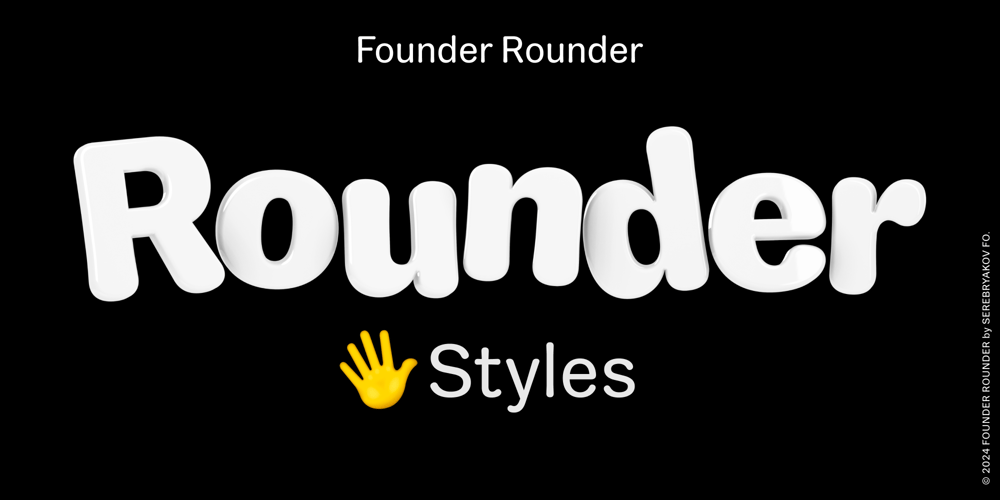
Founder Rounder Font Family was designed by Denis Serebryakov and published by Serebryakov. Founder Rounder contains 5 styles and family package options. Founder Rounder is a simple rounded sans-serif font based on the Founder font. It has non-geometric rounded stroke endings. It is suitable for a wide range of tasks.